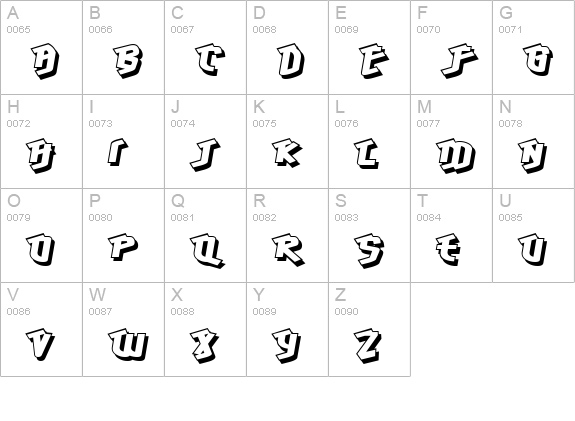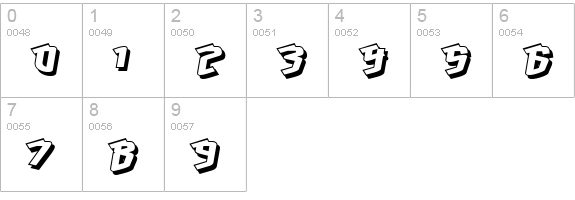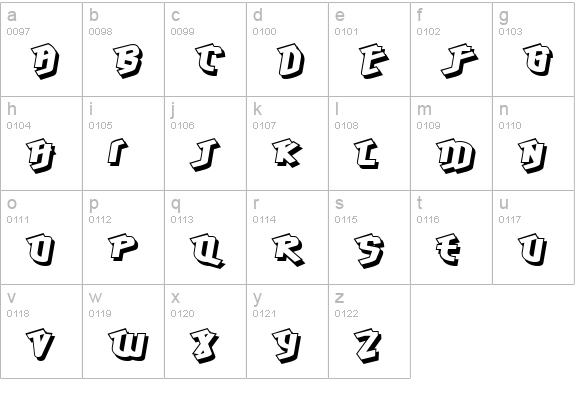
Hawkeye Font Details
Introducing Hawkeye, a captivating and versatile font that effortlessly blends elegance with modernity. With its clean lines and distinctively bold yet graceful characters, Hawkeye is the perfect choice for any design project, from logos and branding to headlines and advertising. This dynamic font is designed to make a lasting impression, capturing attention with its striking presence. Whether you're aiming for a sleek and professional look or a trendy and edgy style, Hawkeye offers a wide range of possibilities to suit your creative vision. But that's not all - Hawkeye is not only visually stunning, but it's also free! Yes, you heard it right. This remarkable font is freely available to download exclusively at FontsMarket.com. Now, you can elevate your designs without breaking the bank, making Hawkeye the ideal choice for designers on a budget or anyone seeking high-quality typography without the hefty price tag. Unleash your creativity and explore the endless possibilities that Hawkeye has to offer. Its versatility and captivating aesthetic will add a touch of sophistication to any project, making it stand out from the crowd. Whether you're designing a magazine layout, creating eye-catching social media graphics, or even crafting an unforgettable presentation, Hawkeye will help you make a lasting impression. So why wait? Download Hawkeye today and experience the seamless blend of elegance and modernity that this font embodies. With its free availability on FontsMarket.com, you have the opportunity to enhance your designs with a truly remarkable typeface. Don't miss out on the chance to elevate your creative endeavors with Hawkeye - the font that combines style, versatility, and affordability all in one.